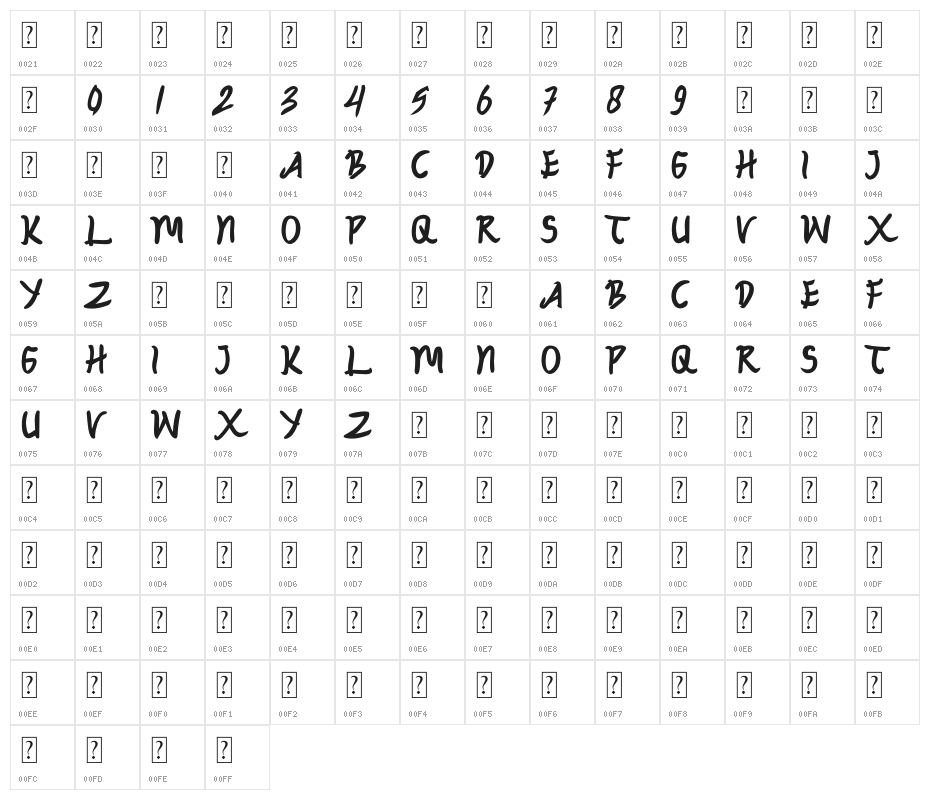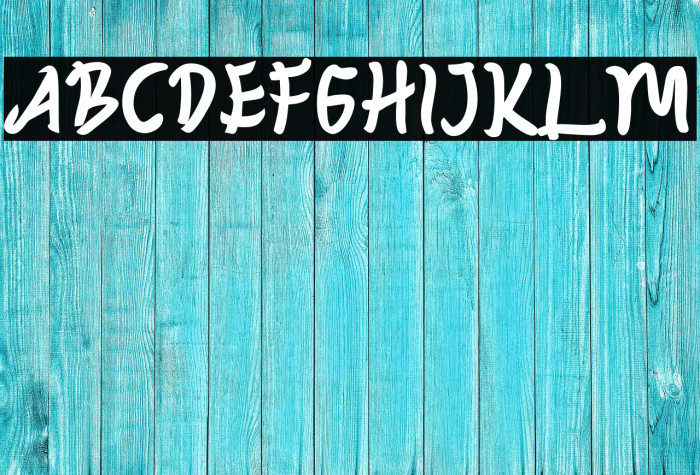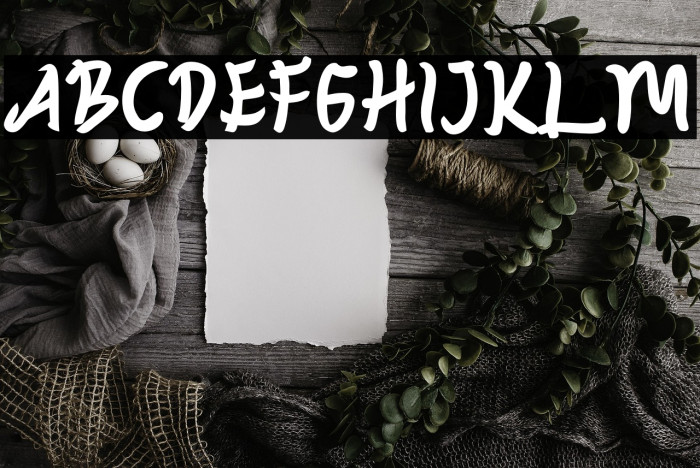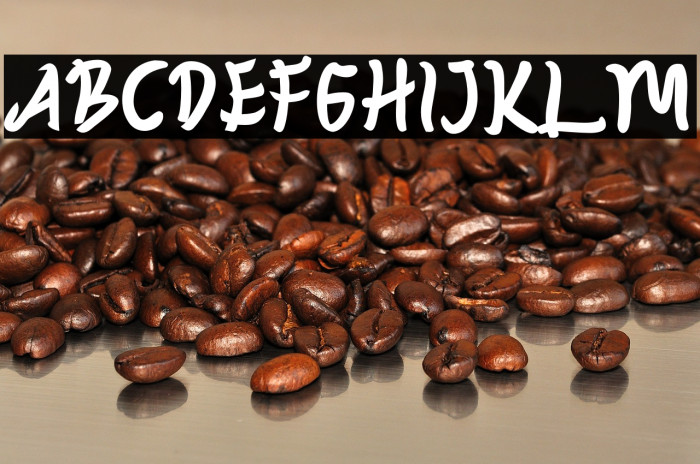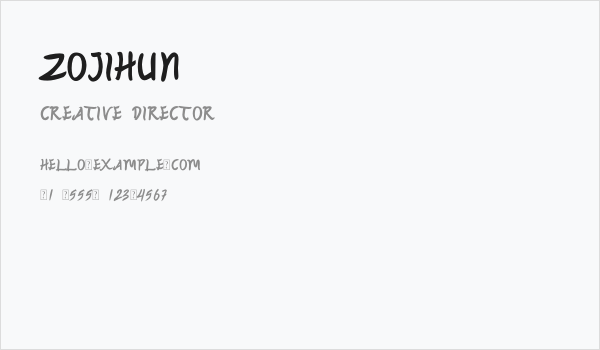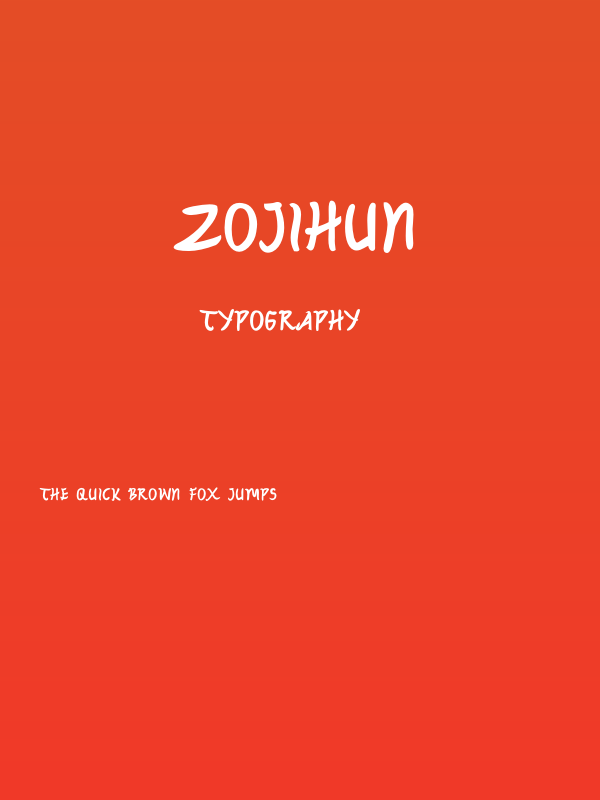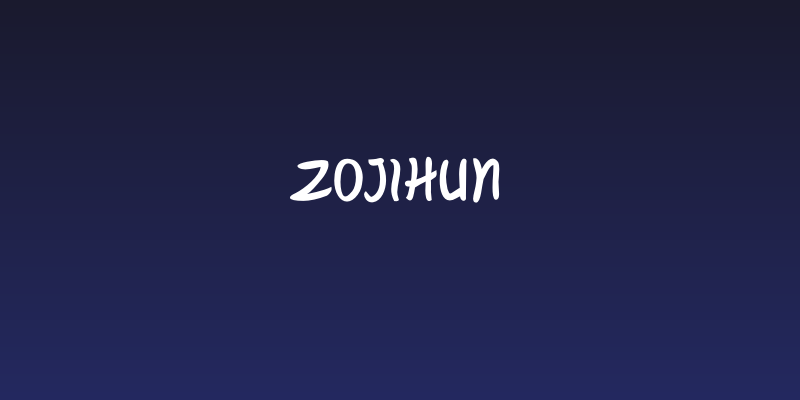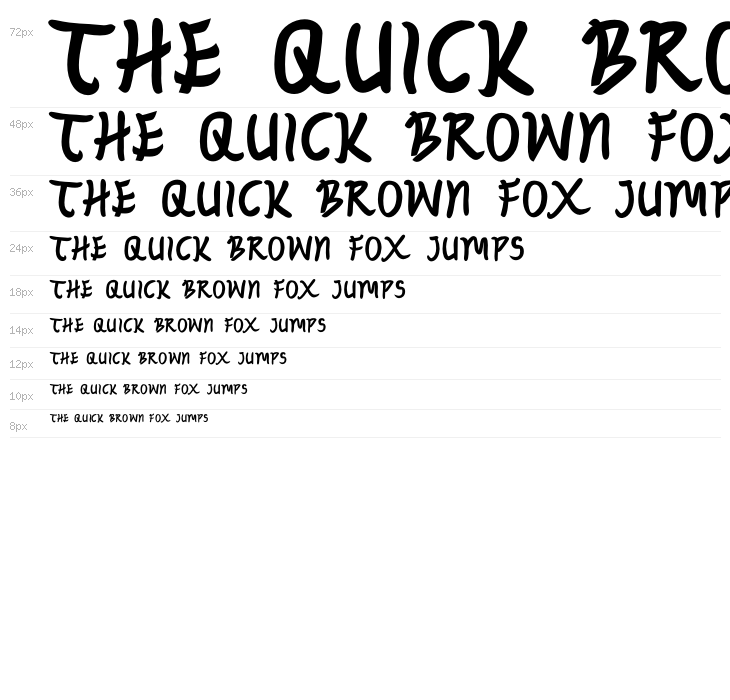
ZOJIHUN Font
ZOJIHUN Description
This font features a bold and dynamic script style with a handwritten appearance. The letters are slightly slanted, giving a sense of motion and fluidity. The strokes are thick and consistent, providing a strong visual impact. The uppercase and lowercase letters maintain a cohesive style, while the numerals are equally bold and expressive. The special characters complement the overall design, making it suitable for creative and artistic projects. The font's energetic and lively nature makes it ideal for capturing attention.
| Proposed Projects | Ideal for branding, logos, posters, and creative design projects that require a lively and expressive touch. |